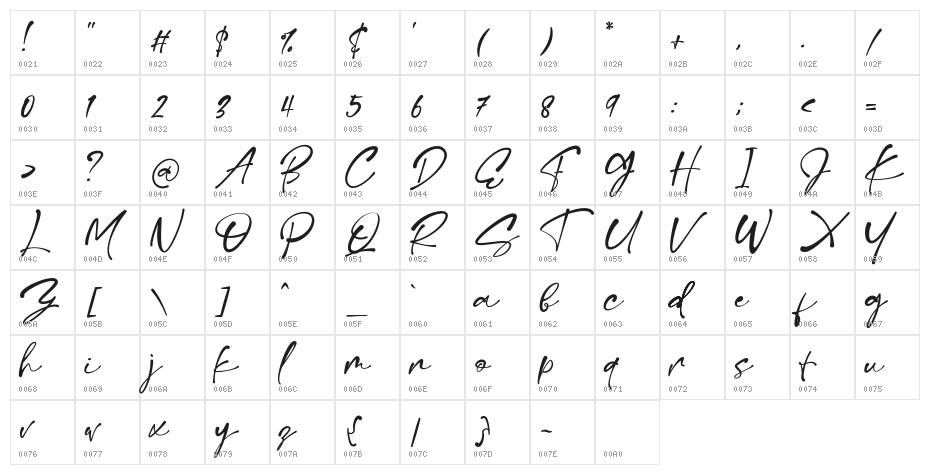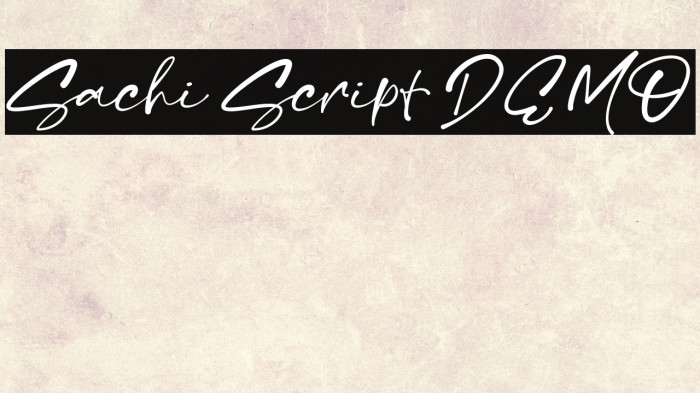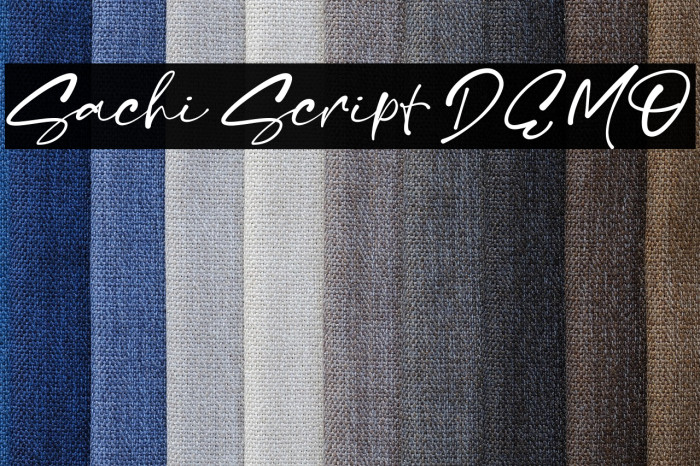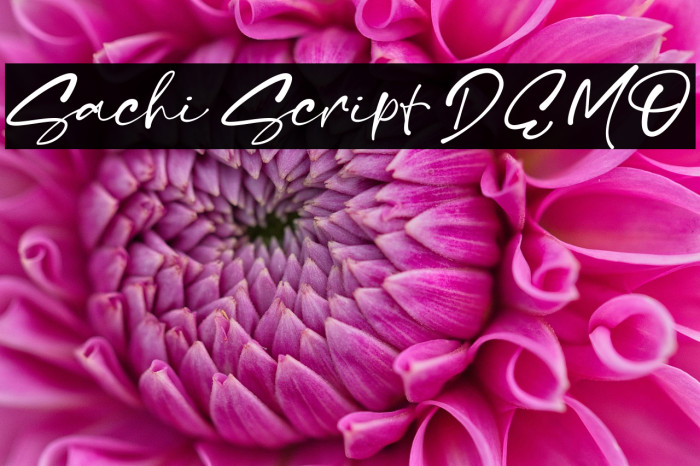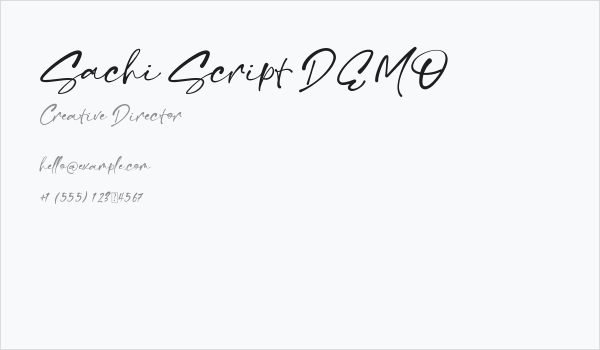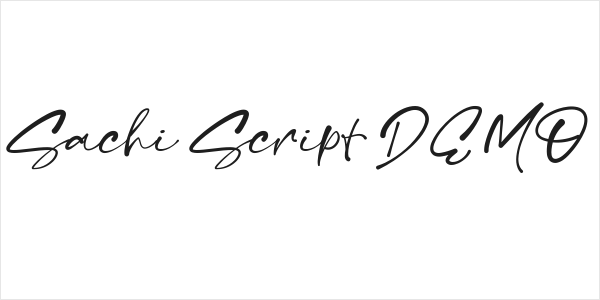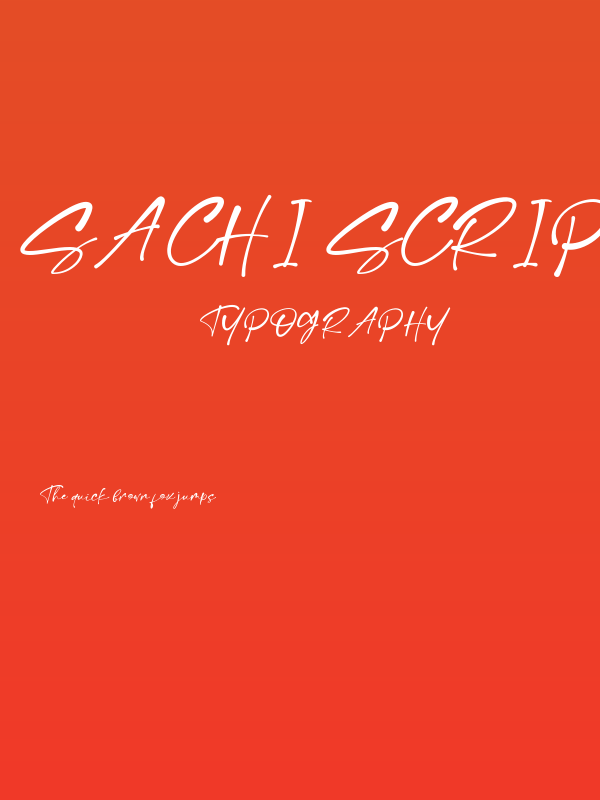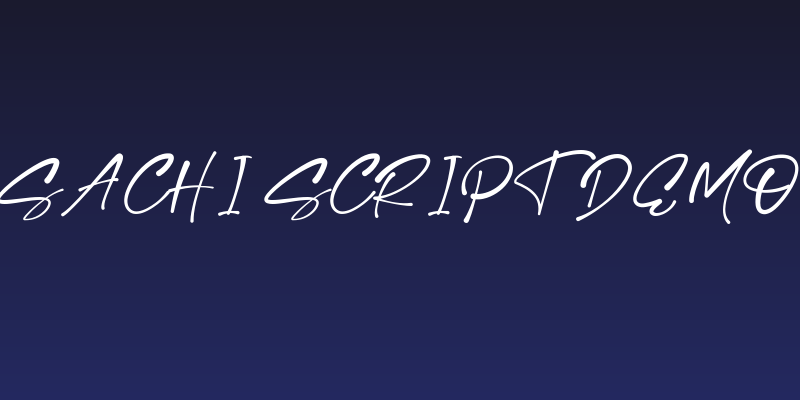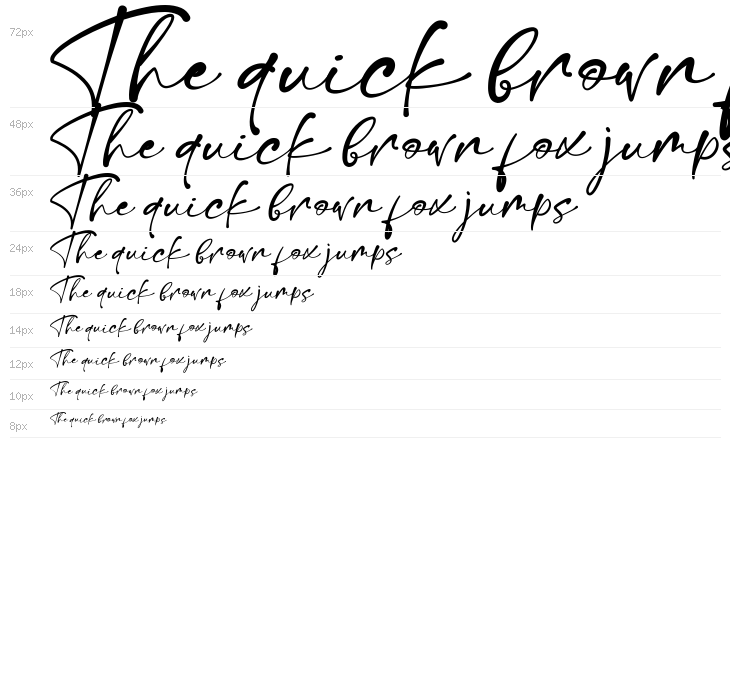
Sachi Script DEMO Font
Sachi Script DEMO Description
This font exudes a lively and dynamic character with its fluid and cursive script style. The letters are interconnected, creating a seamless flow that mimics natural handwriting. Each character is crafted with varying stroke widths, adding a sense of movement and elegance. The uppercase letters stand tall with a slight slant, while the lowercase letters maintain a consistent rhythm. The numerals and special characters are designed to match the overall aesthetic, ensuring a cohesive look. This font is ideal for projects that require a personal touch or a sense of sophistication.